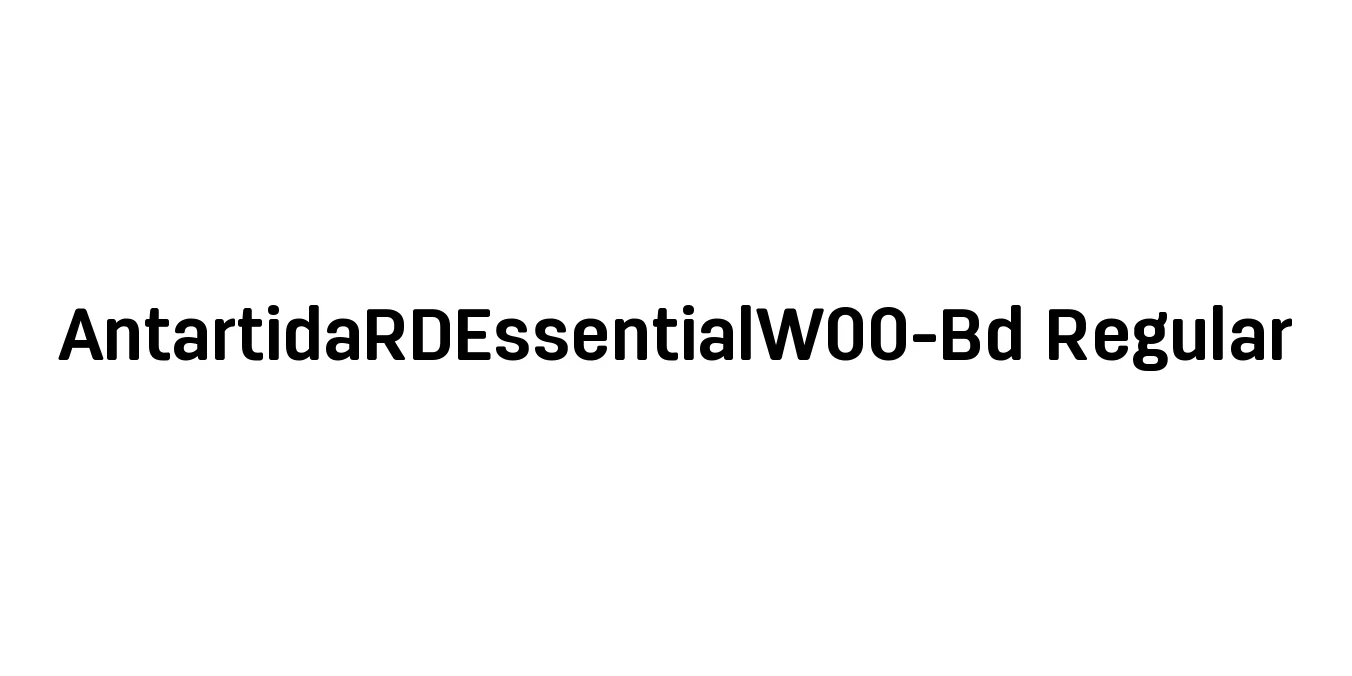
AntartidaRDEssentialW00-Bd Regular
Designed by Luciano Vergara
Antartida RD Essential is a contemporary sans-serif typeface designed by Luciano Vergara and released through the renowned Latinotype foundry. This specific weight, Bold Regular, is part of a larger family characterized by its rounded terminals and linear structure, providing a unique balance between technical precision and friendly warmth. It was developed to serve as a versatile tool for modern designers who require a clean, geometric aesthetic with a human touch.
The RD Essential version focuses on the most critical weights needed for high-impact communication. Its open apertures and balanced proportions ensure that the font remains highly legible even at smaller sizes or in low-resolution digital environments. Since its introduction, it has become a staple for corporate identities and editorial projects that seek a neutral yet sophisticated voice that stands out without being overwhelming.
AntartidaRDEssentialW00-Bd Regular Best Uses
Ideal for logo design and branding projects that need a professional yet approachable look.
Excellent for high-impact headers, navigation bars, and user interface elements.
Perfect for headlines and subheadings in magazines, brochures, and digital publications.
Great for outdoor signage and social media graphics where legibility and style are paramount.